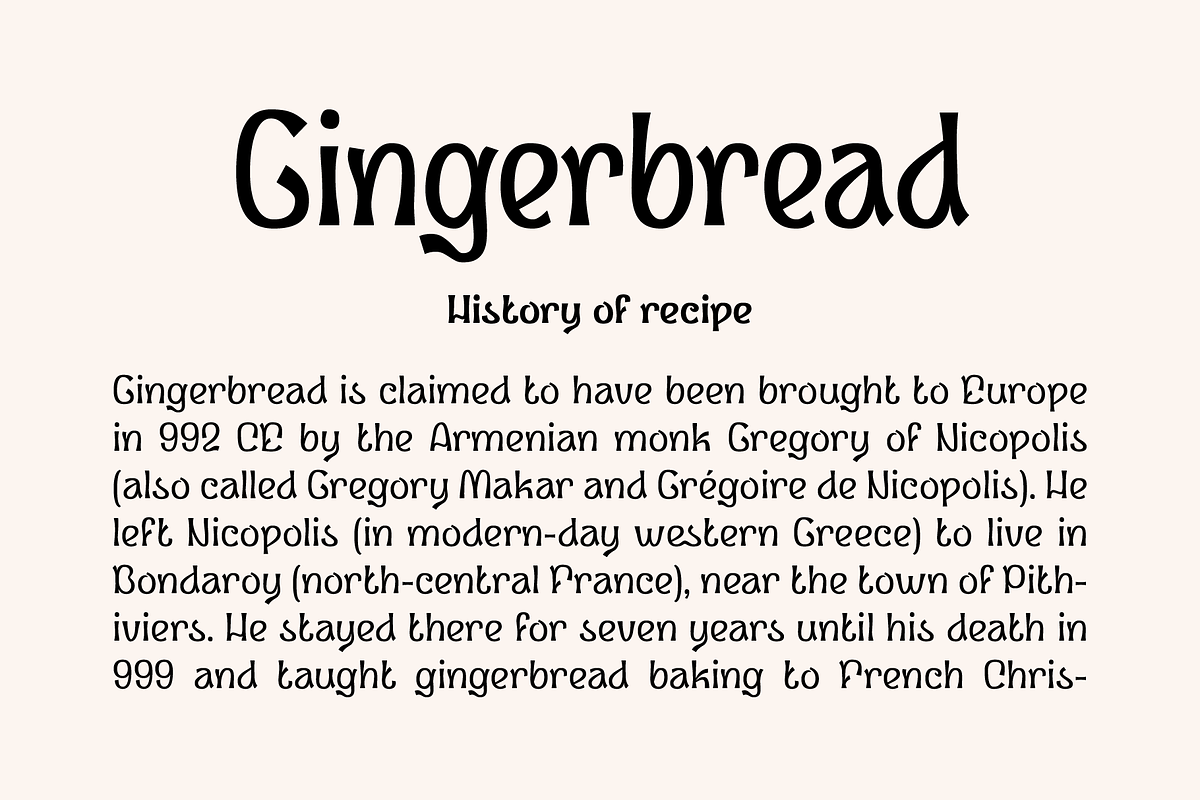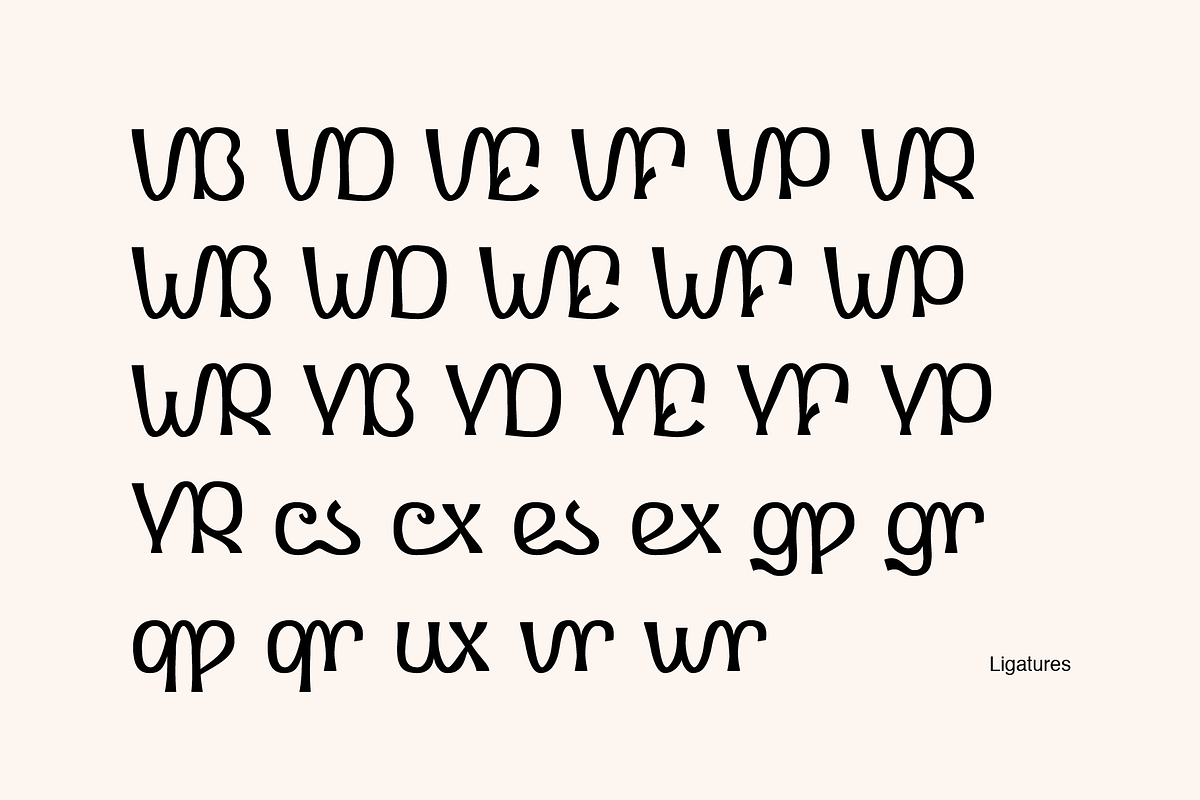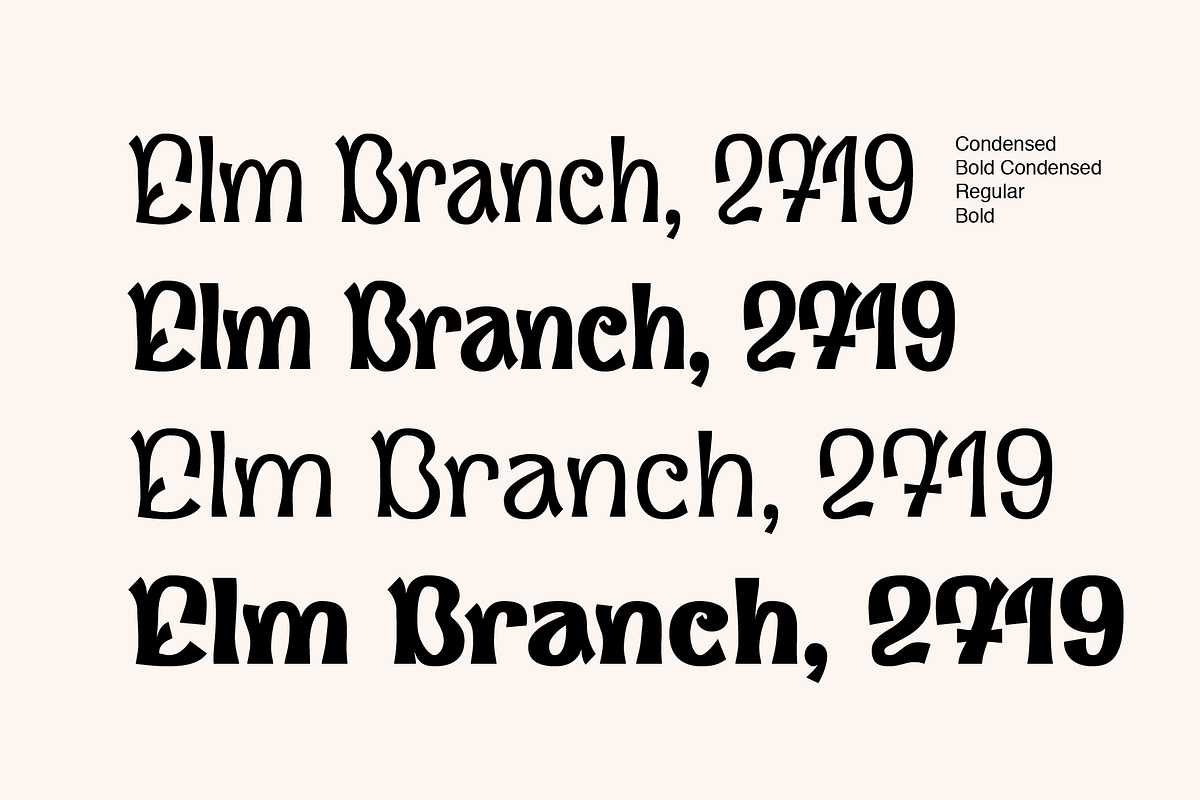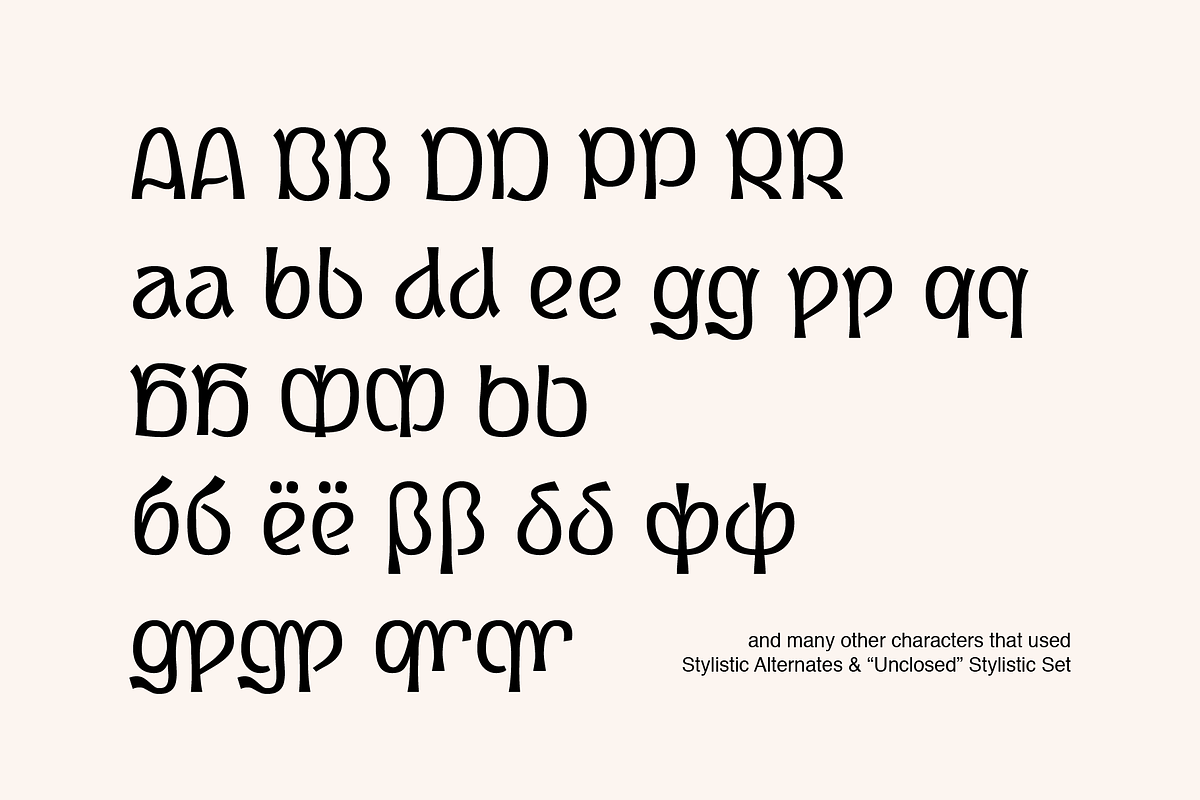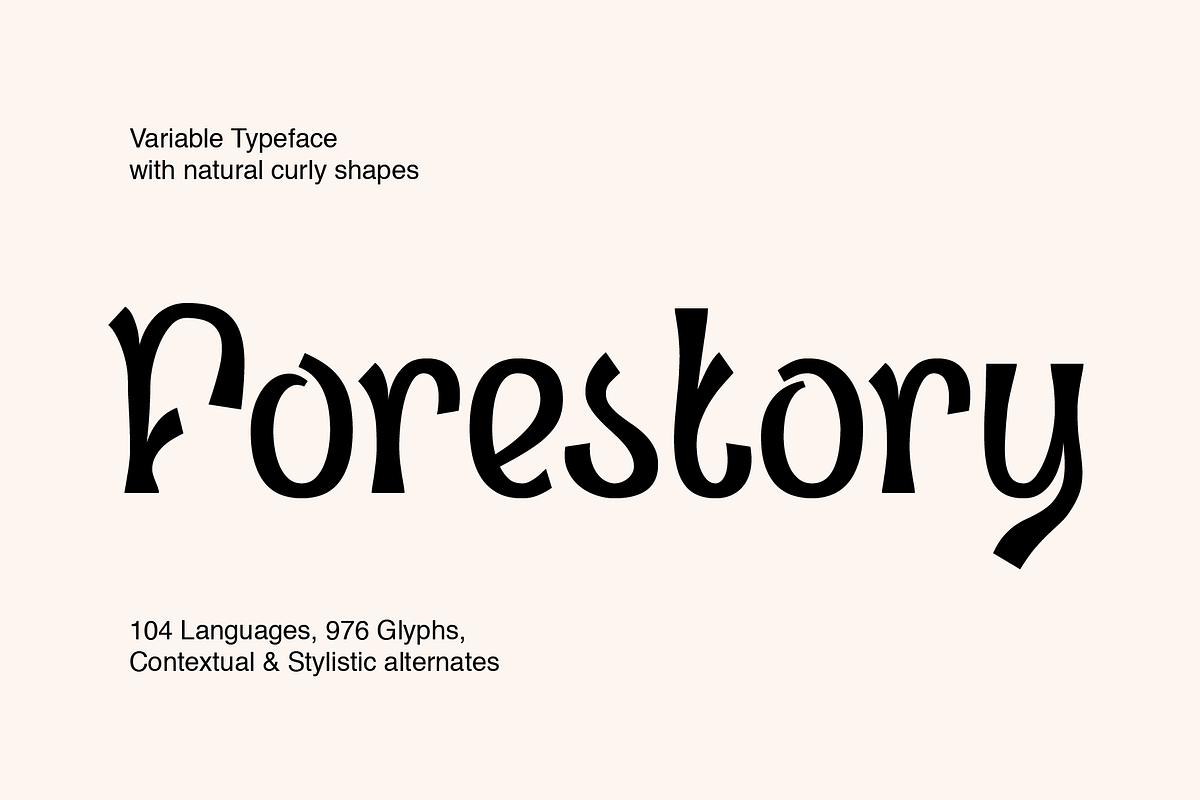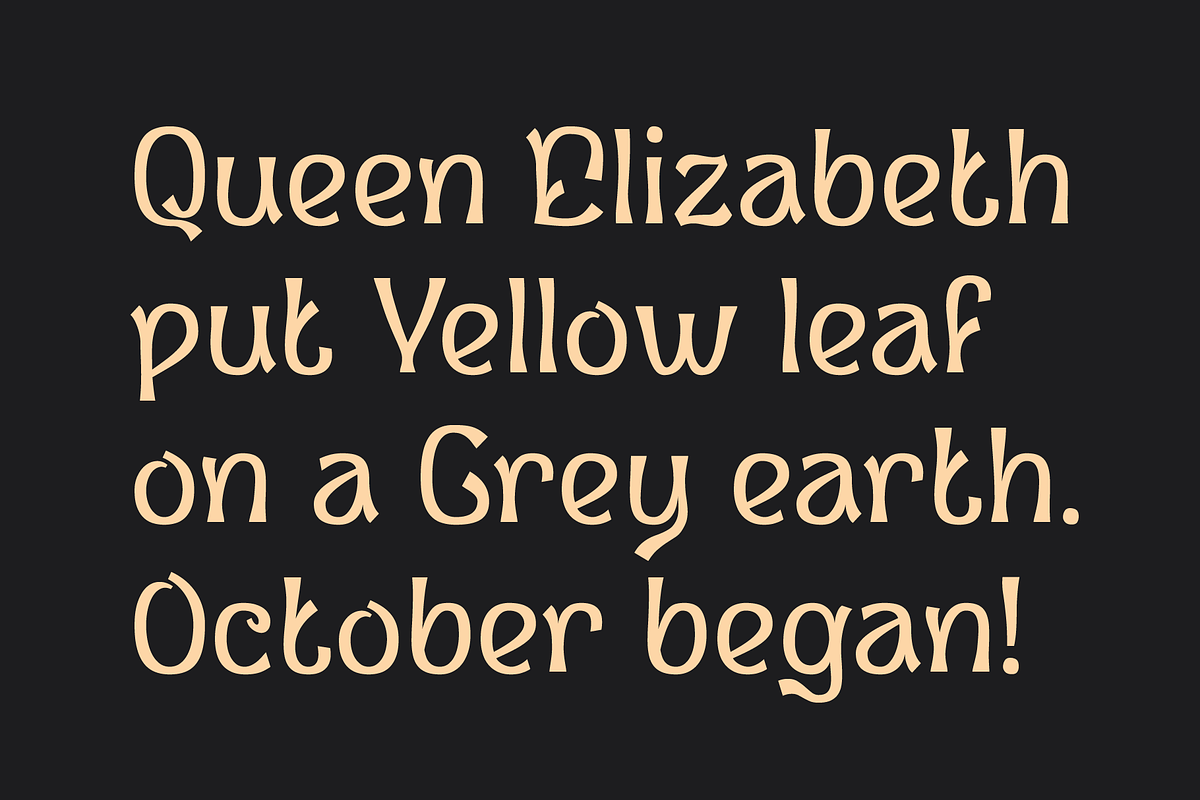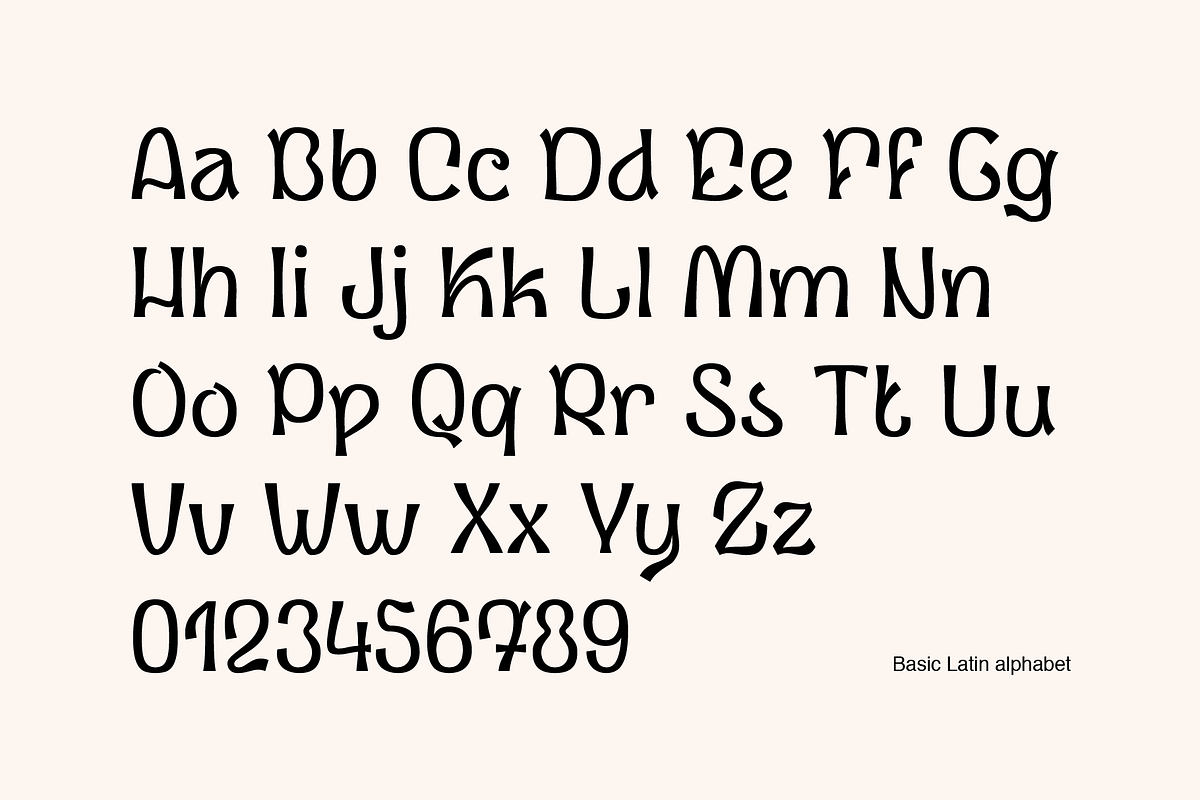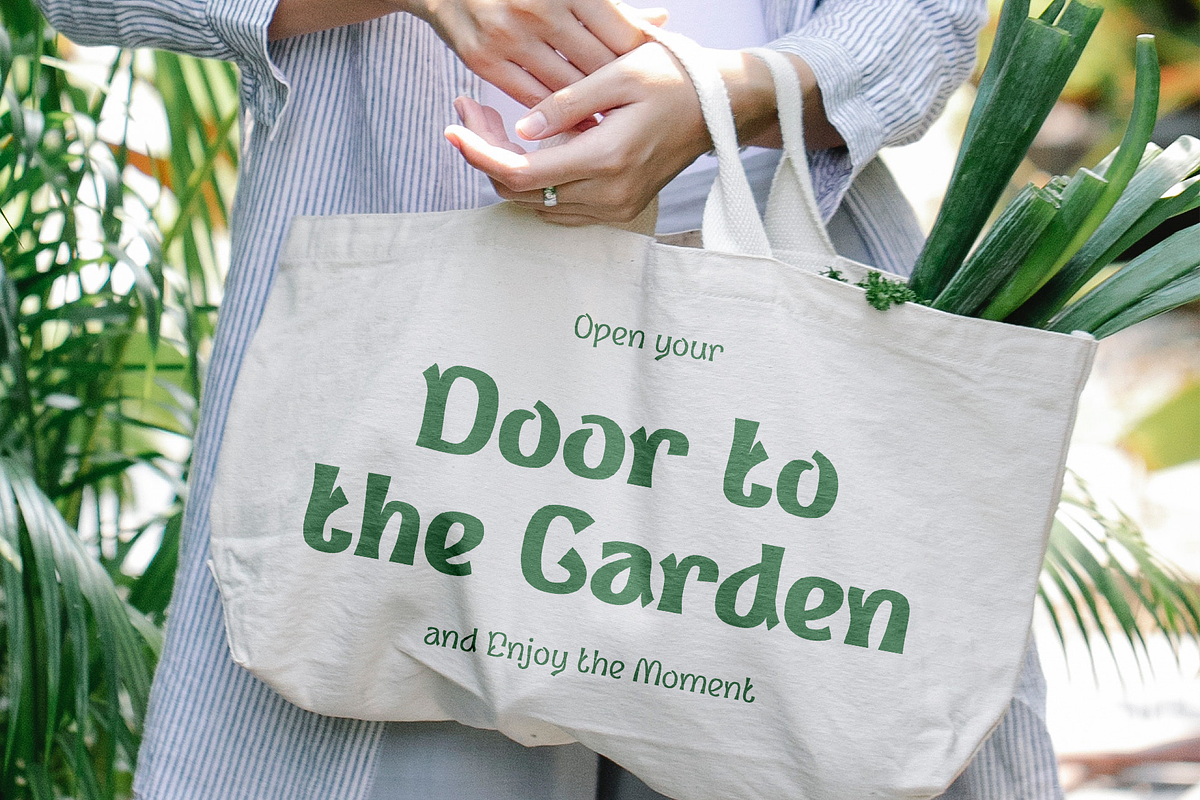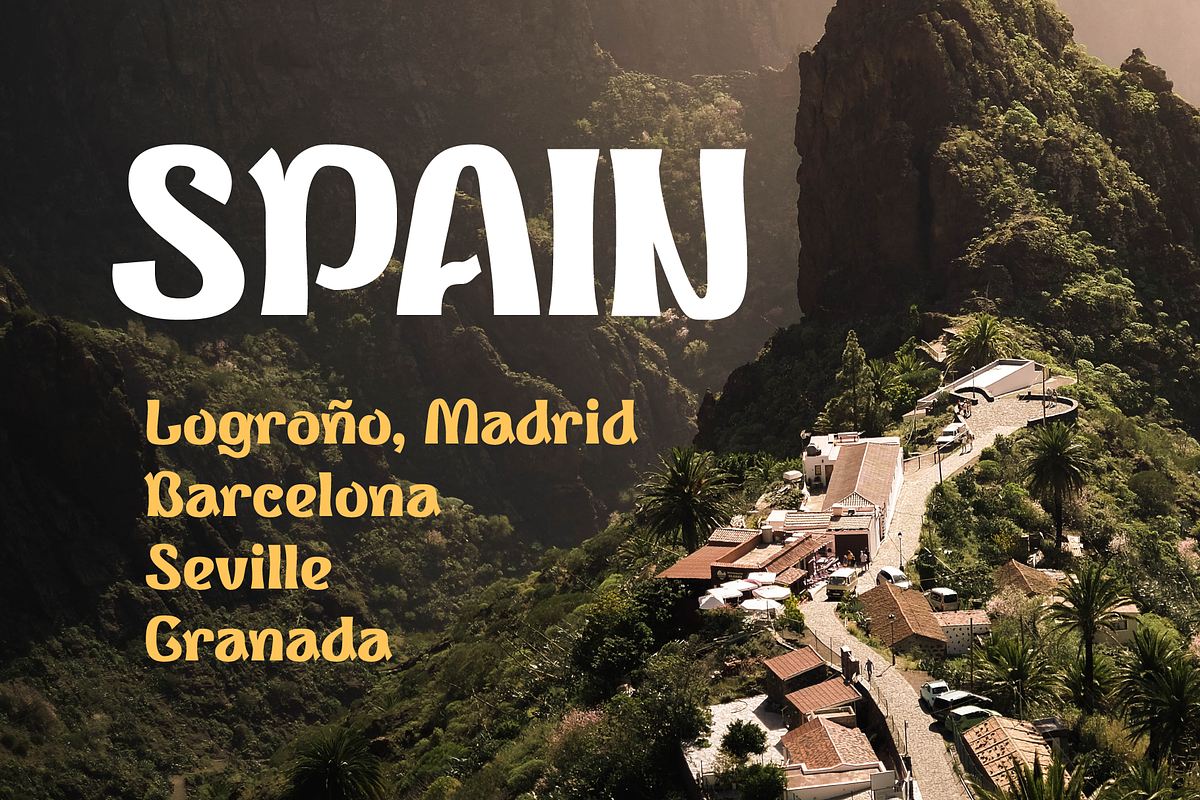
Forestory font
Forestory is a typeface that was born among the trees. Its natural curly shapes are filled with the magic of a forest full of stories.
Forestory Condensed works well for headlines, while Forestory Regular is better for body text. Forestory Variable font has Width and Weight axes, includes Condensed, Bold Condensed, Regular, Bold and any variations in between.
Scripts: Latin, Greek, Cyrillic
Glyph count: 976
Contextual Alternates: FF GG KK MM OO SS TT ZZ cc dd ee hh jj nn oo pp rr ss ww yy zz ГГ ПП бб λλ.
Stylistic Alternates: ABDFGKMNOPRSTZabcdefghjmnopqrswz АБВГЖКЛМОПРТФЬЪЫЯабеёорсьъы ΑΒΓΖΚΜΝΟΠΡΤΦΆβδλορϲφ ÀÁÂÃÄÅĄĂĀẢẠẮẰẲẴẶẤẦẨẪẬÆĎĐÐĞĢŘŔŖàáâãäåąăāảạắằẳẵặấầẩẫậæďđèéêëěęēėẻẽẹếềểễệğģ 269.
Stylistic Set: Unclosed (ss01). This set reveals the closed letterforms, making the typeface even more curly.
Ligatures: VB VD VE VF VP VR WB WD WE WF WP WR YB YD YE YF YP YR ax cs cx es ex gp gr qp qr ux vr wr (+ their stylistic alternates). These ligatures are designed to connect some characters in a more natural way.
Superscript, Subscript, Fractions: ⁰¹²³⁴⁵⁶⁷⁸⁹ ₀₁₂₃₄₅₆₇₈₉ ½ ¼ ¾.